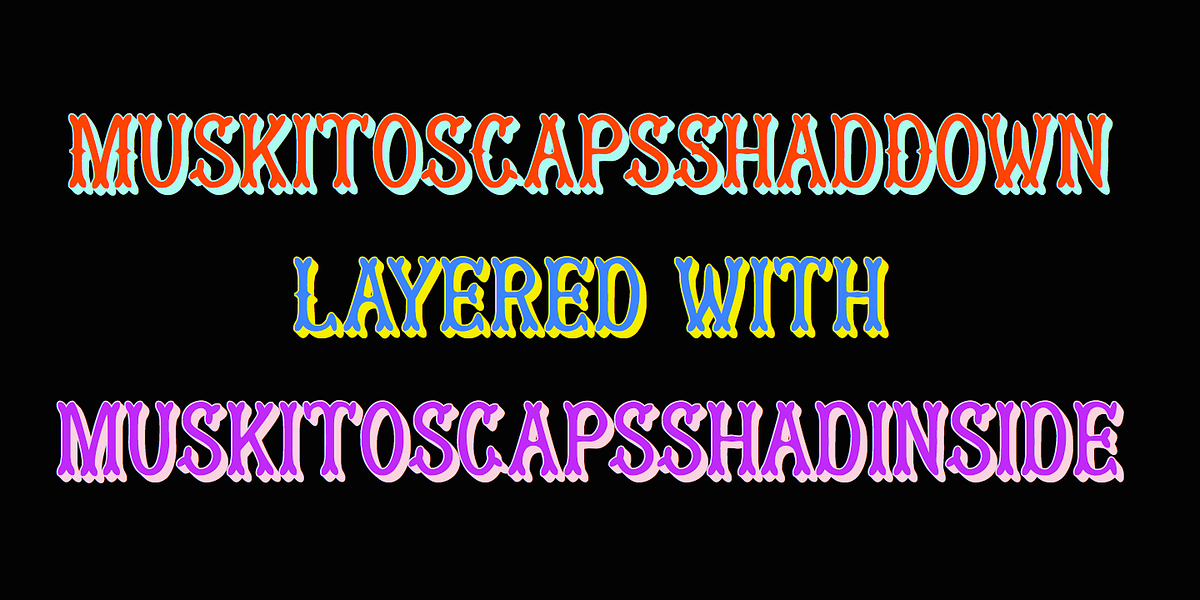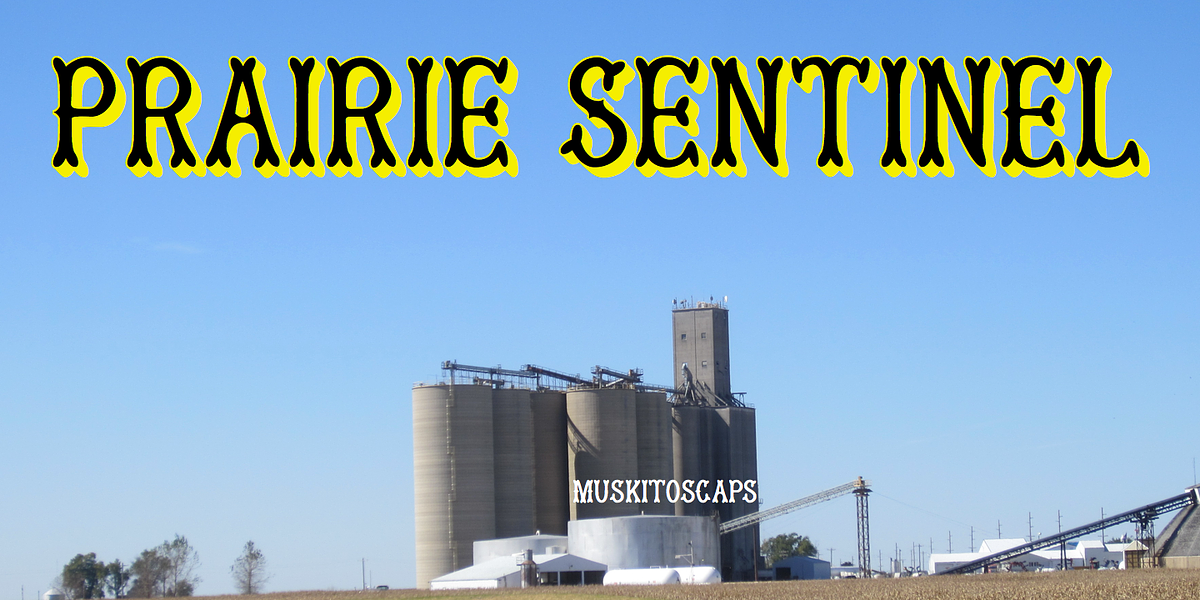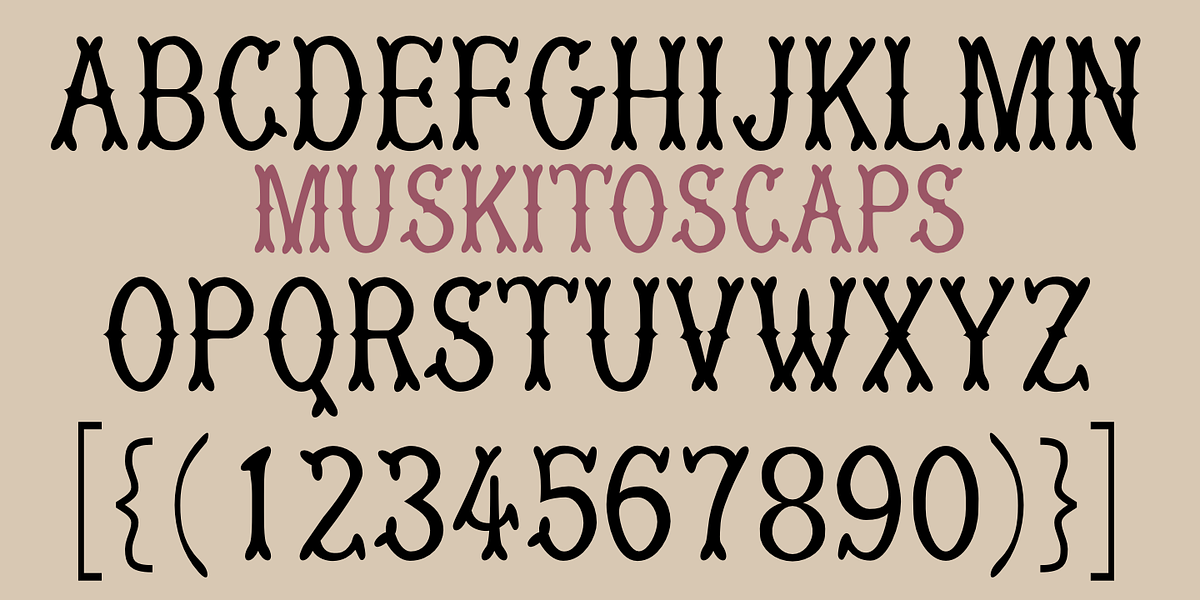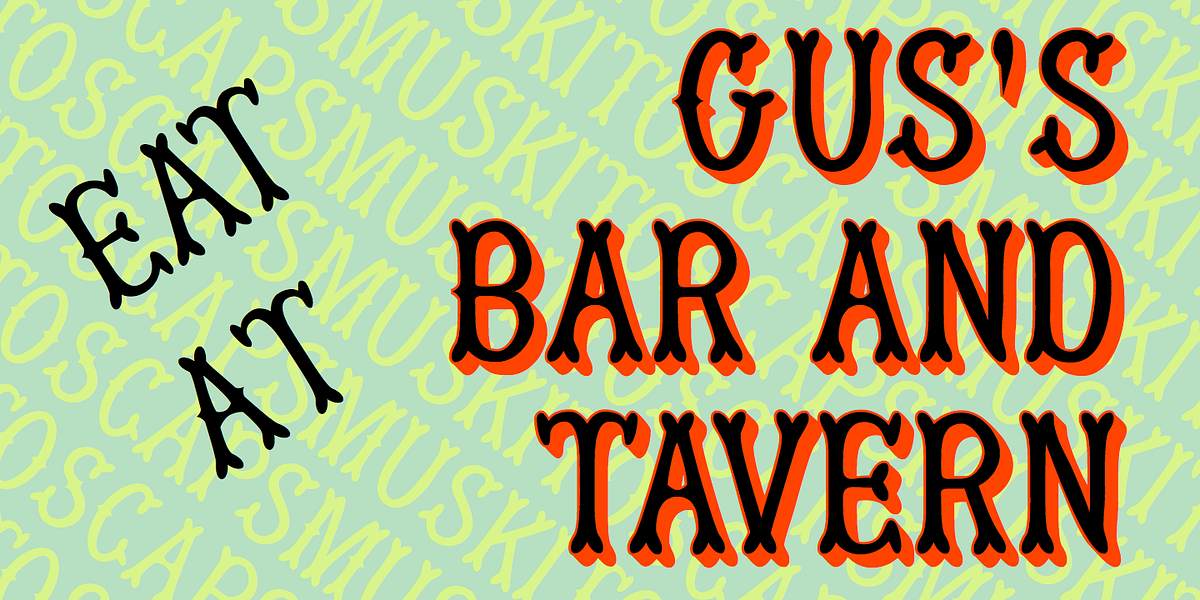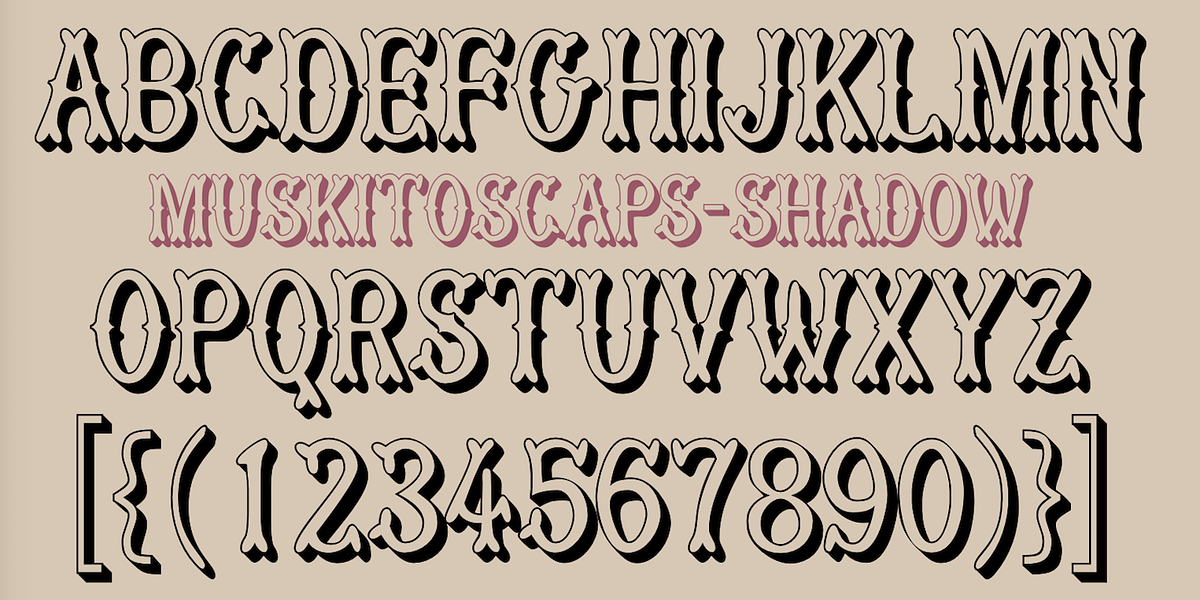
MuskitosCaps
MuskitoCaps is a unique display font inspired by woodcut typography. Its defining feature is the narrow Tuscan style with split serifs. The font is all-caps and offers three distinct styles: plain, shadowed, and shadowinside. The shadowinside style allows for easy creation of bi-colored lettering when layered with the shadowed style.